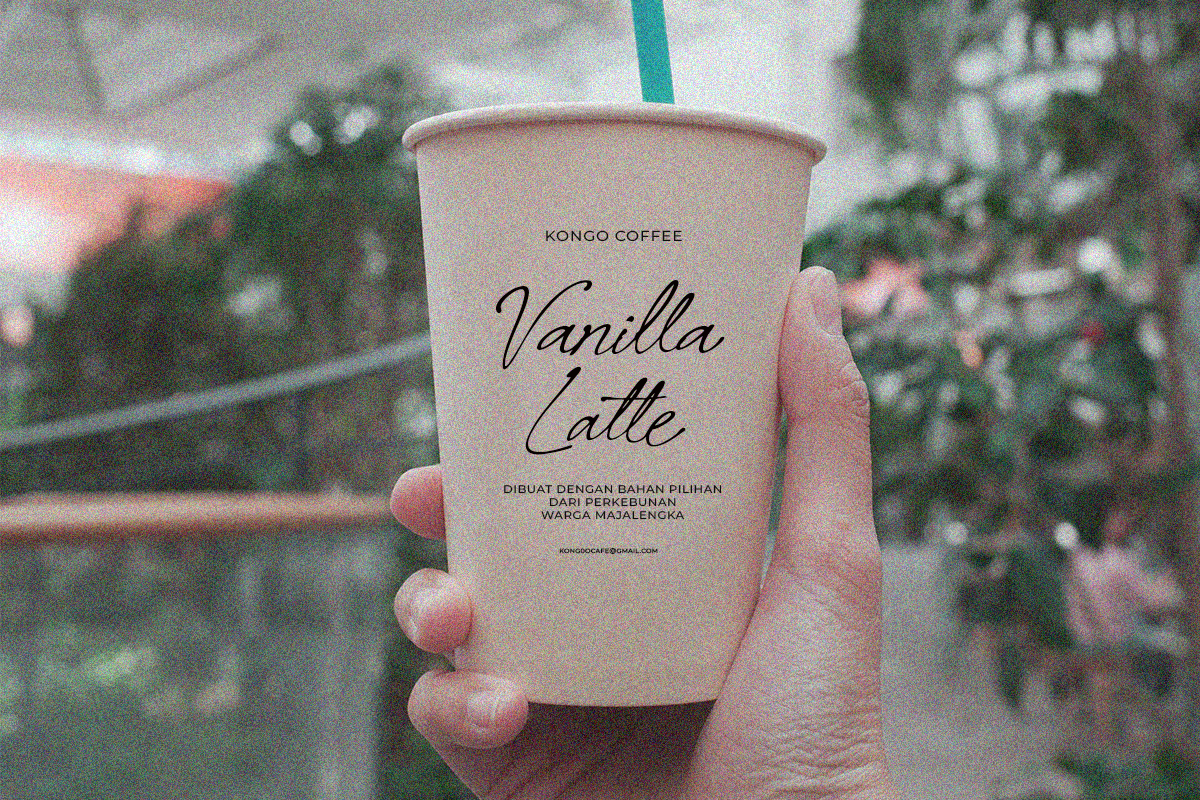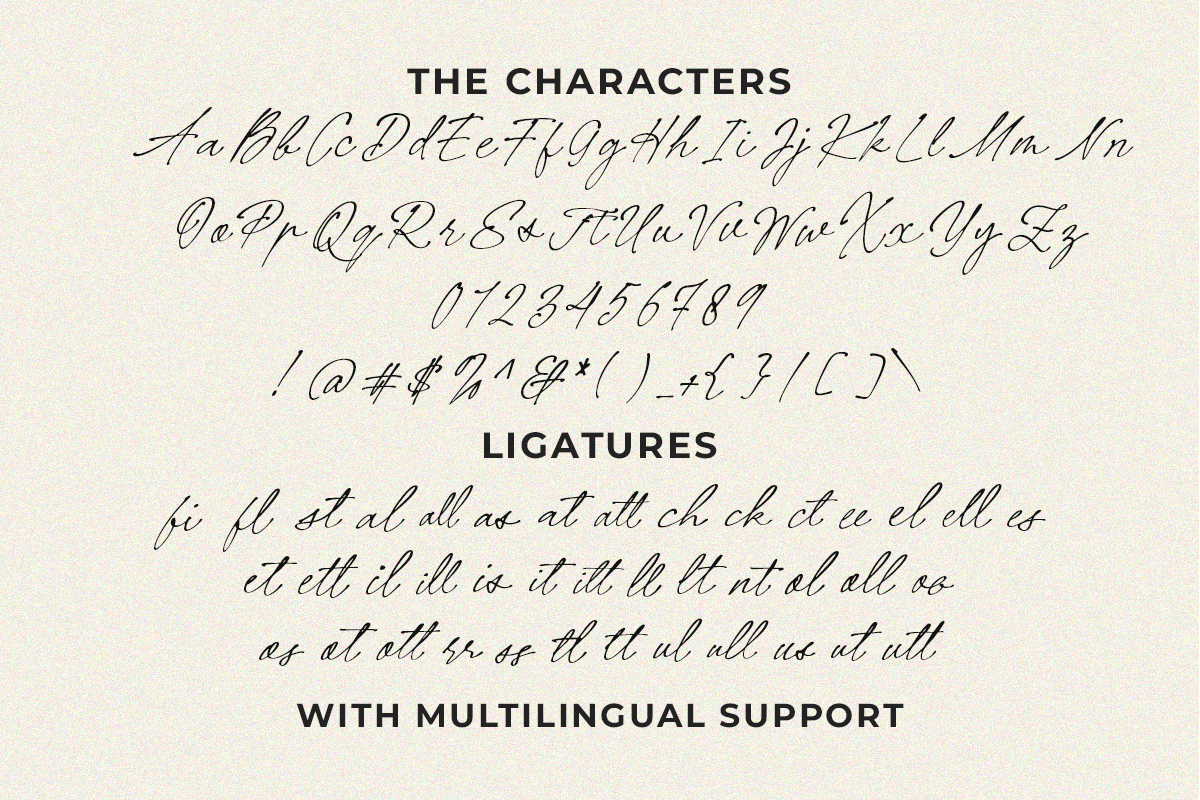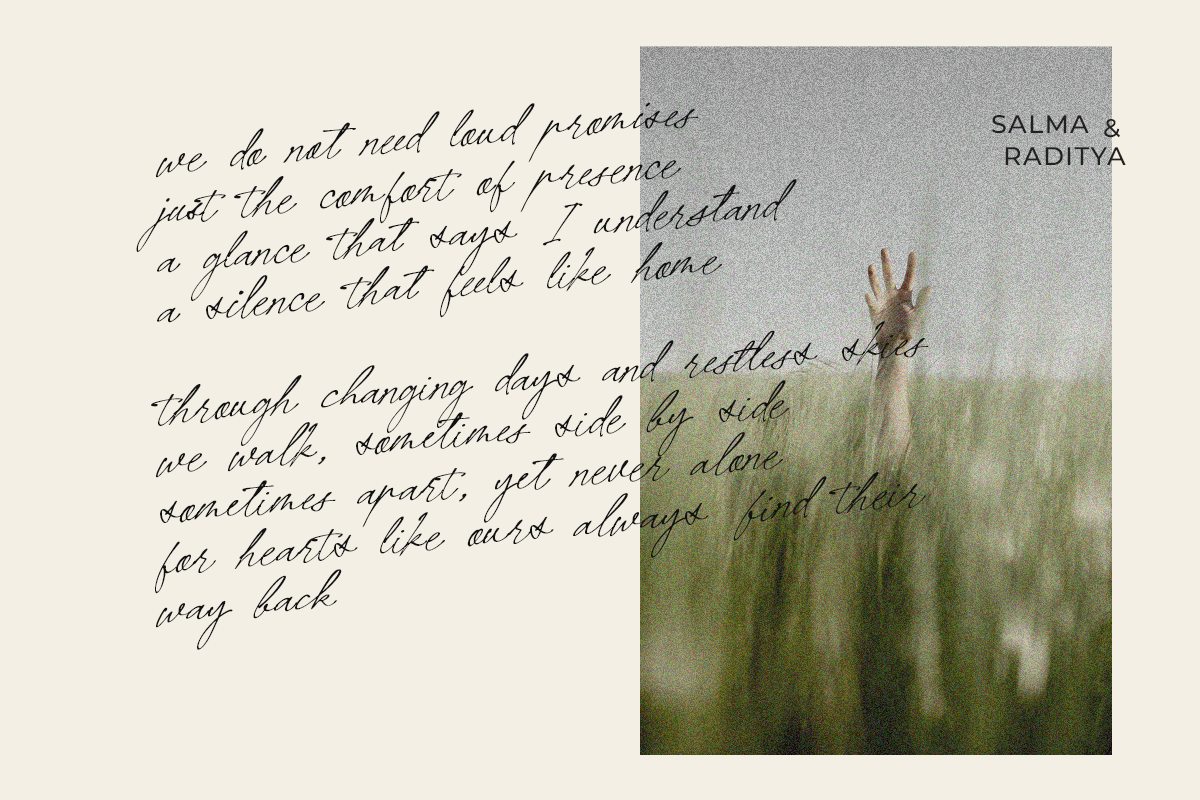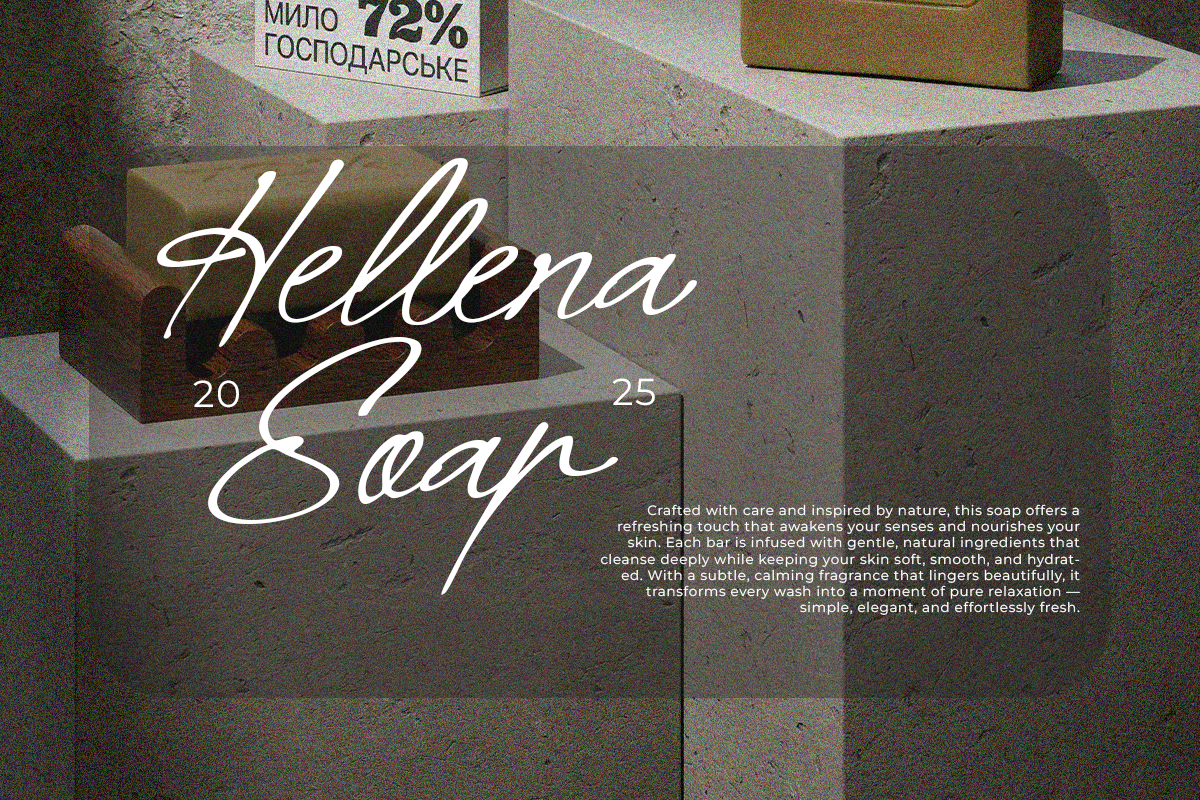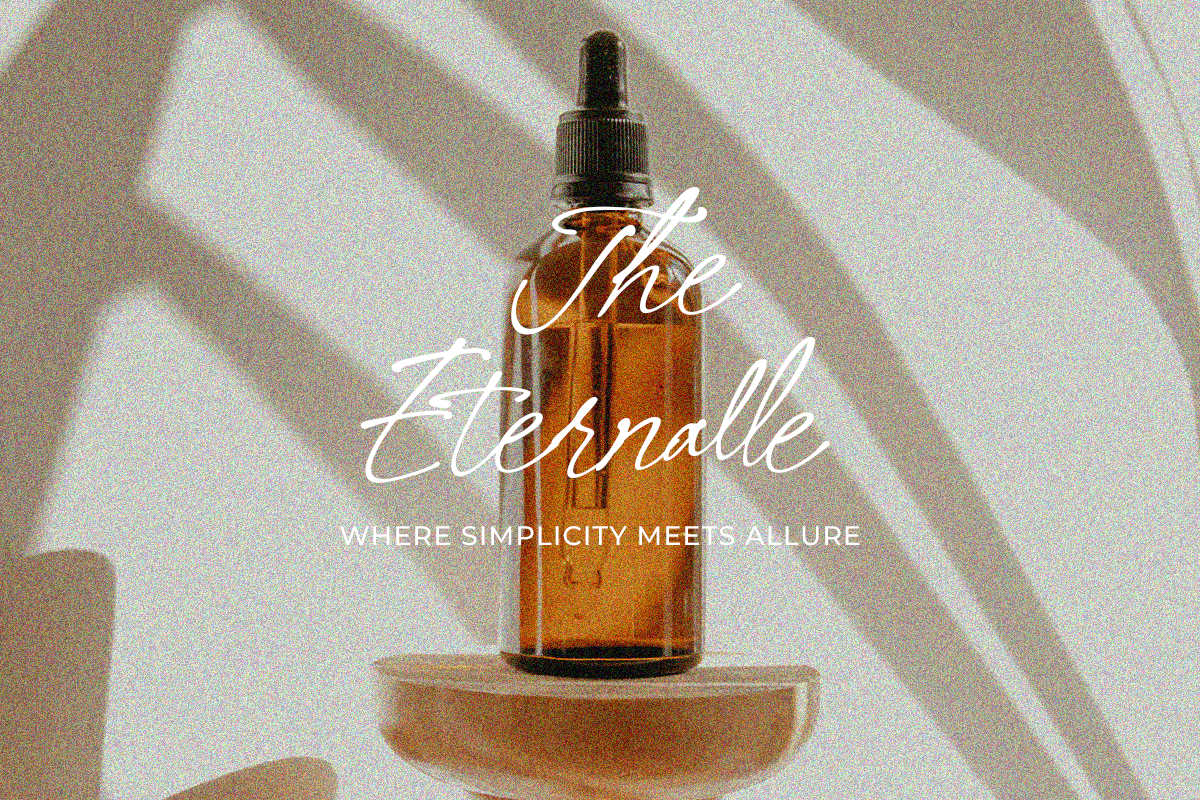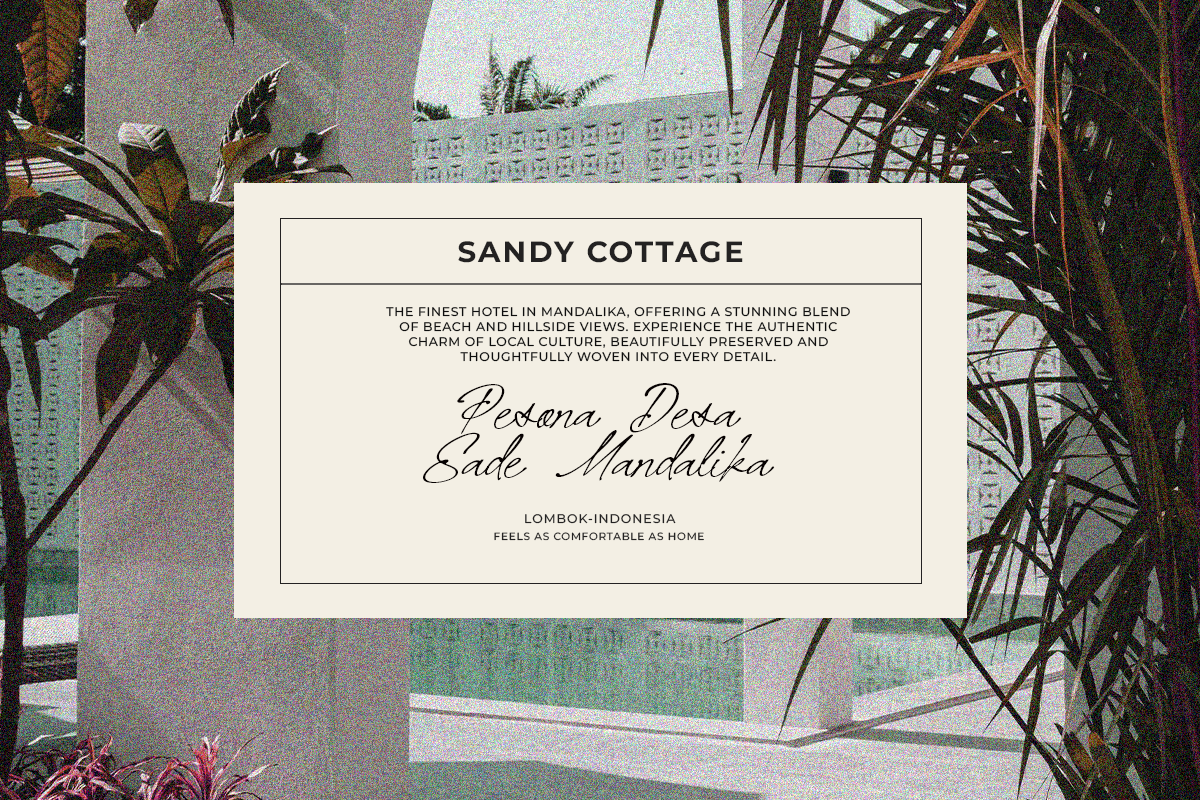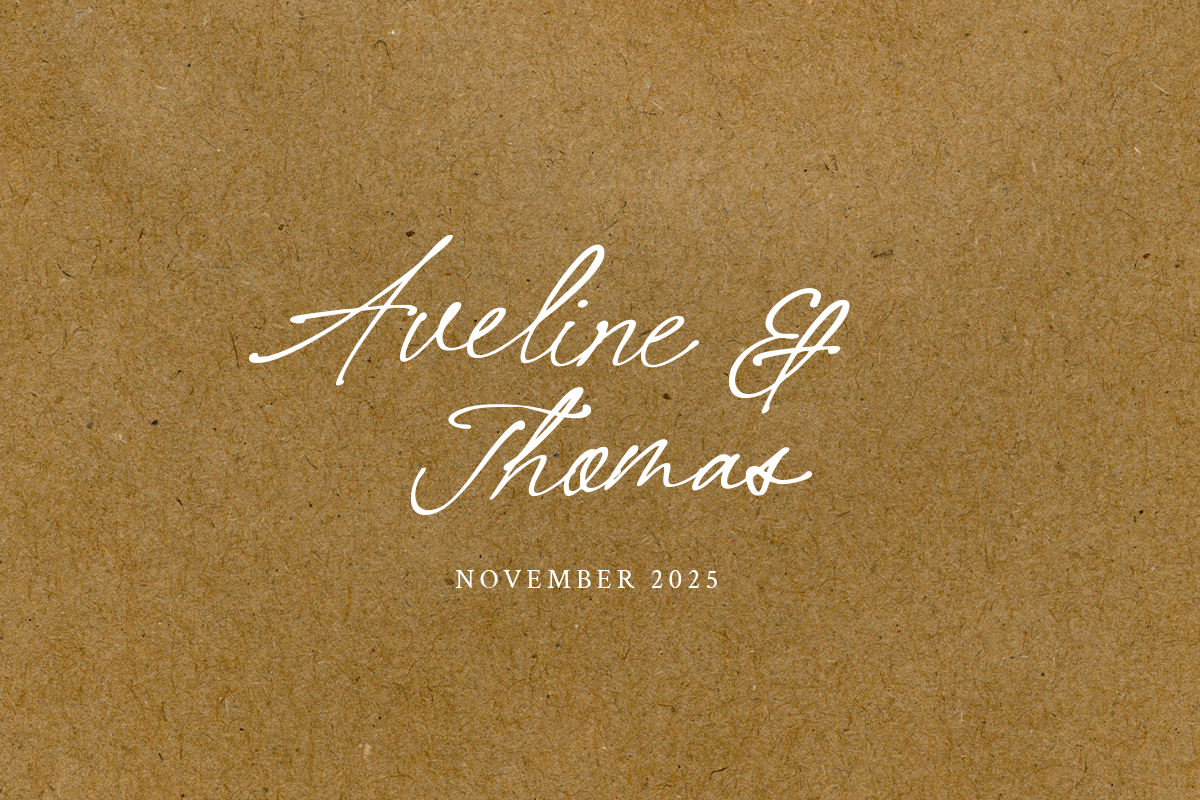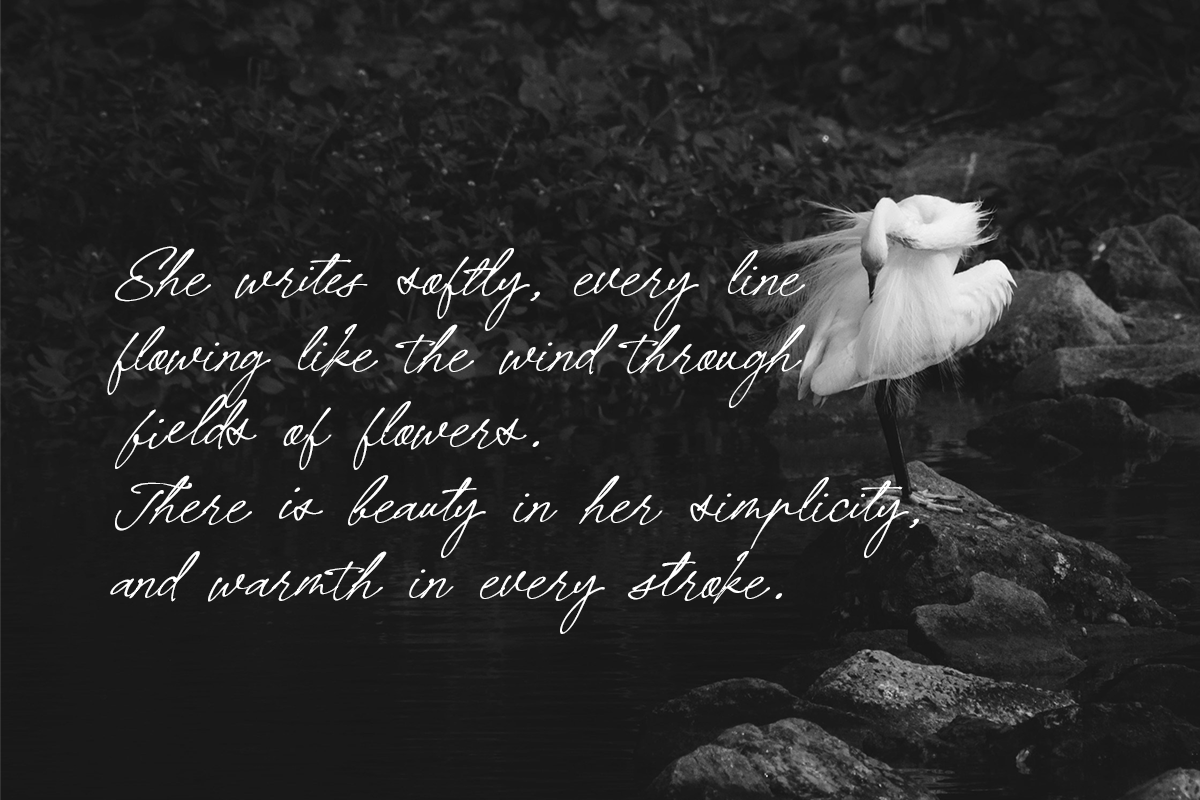
Silent Tower
Handwritten fonts are highly functional for all your design needs. Silent Tower is created with an elegant and beautiful touch, enhanced by a naturally messy and organic feel. This font can be applied to a wide range of design projects. Its uniqueness goes beyond elegance and beauty — it also works perfectly for luxurious themes, as well as designs with a cute and playful vibe.